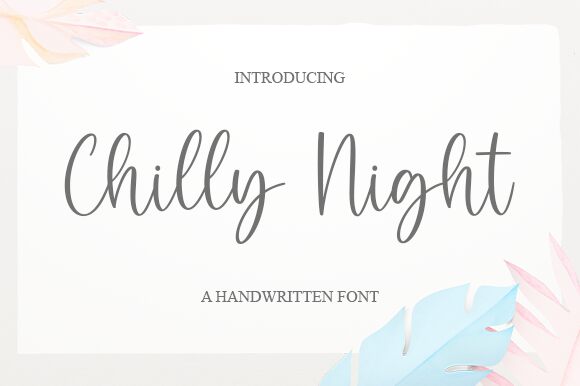
Chilly Night
Chilly Night is a light, handwritten font designed by Aldi Raya Pradipta. Perfect for a variety of projects, its elegant script style makes it ideal for logos, greeting cards, posters and more.